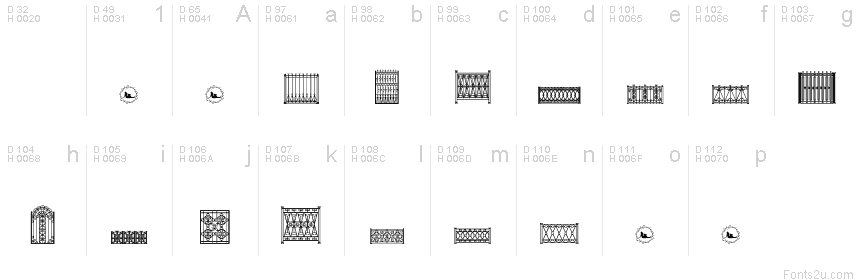
Fenced In LT is a free wrought-iron fence dingbat font built from ornate railings, gates, and architectural panels. Repeated spear-like finials, curling scrollwork, and diamond braces recall traditional metalwork. Each symbol reads as a complete structure.
Designers creating heritage-themed hospitality or garden-focused work can use these pieces in signage, packaging, and event graphics. Their enclosed frames and repeating ironwork patterns suit vintage inns, botanical products, and historical attractions. Beyond lettering, each character can become a border, illustrated gate, or section of a decorative map.
Fenced In LT